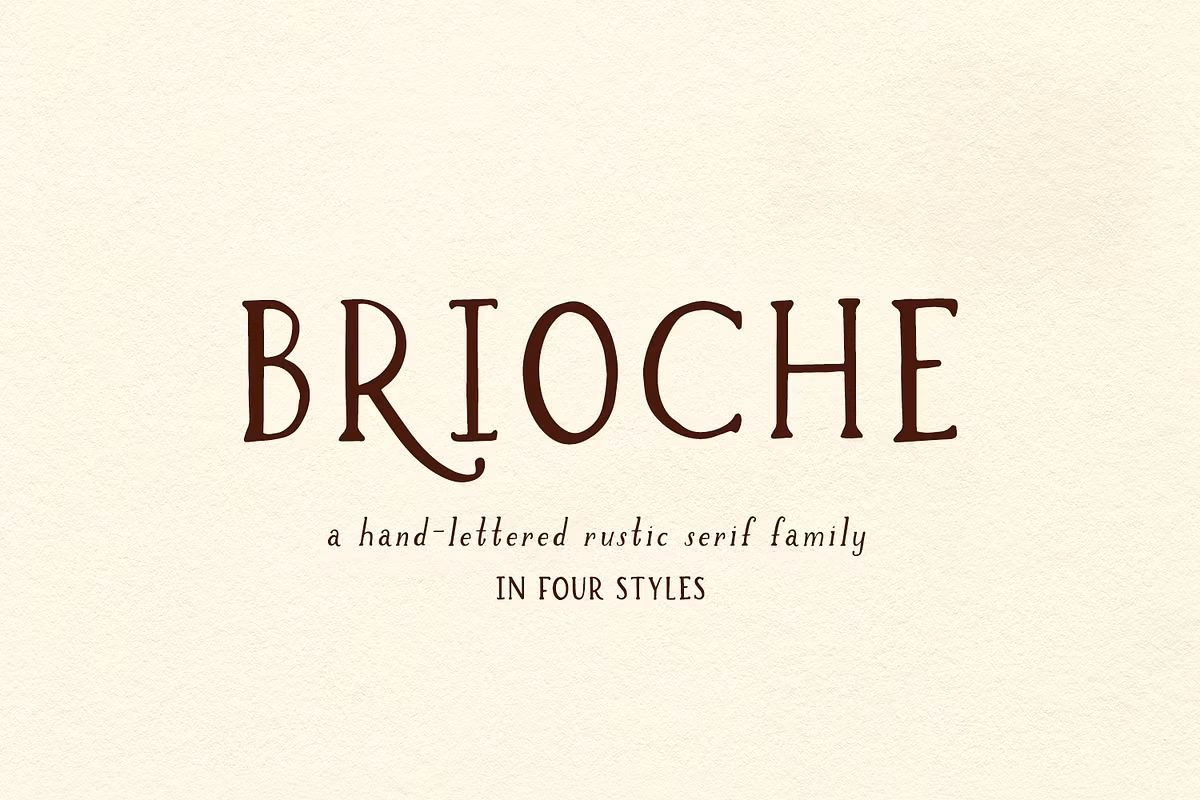
Brioche Rustic Serif Font Family Free Download is a warm and character-rich typeface collection that blends classic serif structure with a rustic, handcrafted feel. Perfect for farmhouse-style branding, packaging, editorial headlines, and vintage-inspired projects, this font family adds personality and authenticity to your work.
With multiple weights and charming imperfections, Brioche Rustic Serif Font Family Free Download offers flexibility for both digital and print designs. Whether you're creating cozy product labels or storytelling layouts, this font delivers a distinct look that resonates with artisanal and organic aesthetics. It’s a go-to for designers seeking a balance between elegance and handmade appeal. Test the full vibe of Brioche before licensing it commercially—your next design might just find its perfect match.